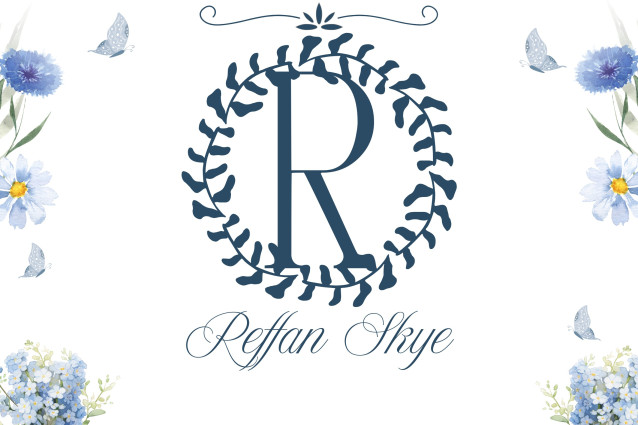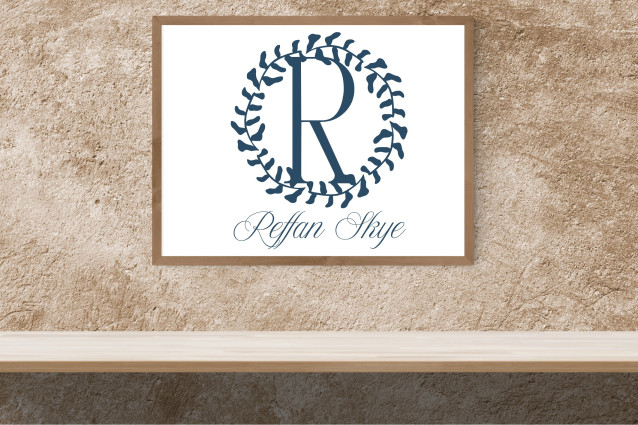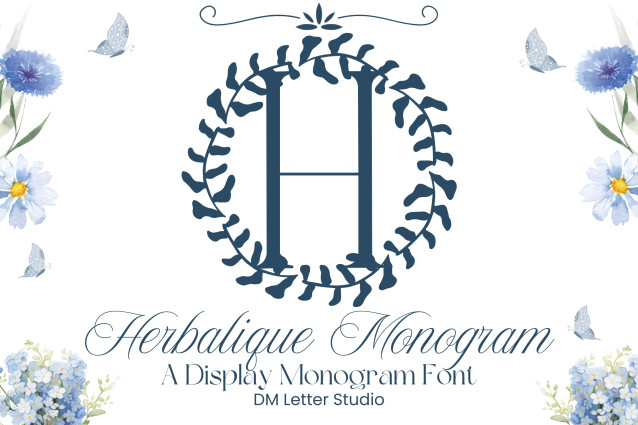
Herbalique Monogram Font
Herbalique Monogram Font is a refined serif monogram font infused with graceful herbal and leafy accents. Each uppercase letter is beautifully designed with botanical detailing, blending classic typography with nature’s elegance. Perfect for weddings, branding, stationery, and personalized crafts, Herbalique Monogram brings a timeless yet organic feel to your projects.